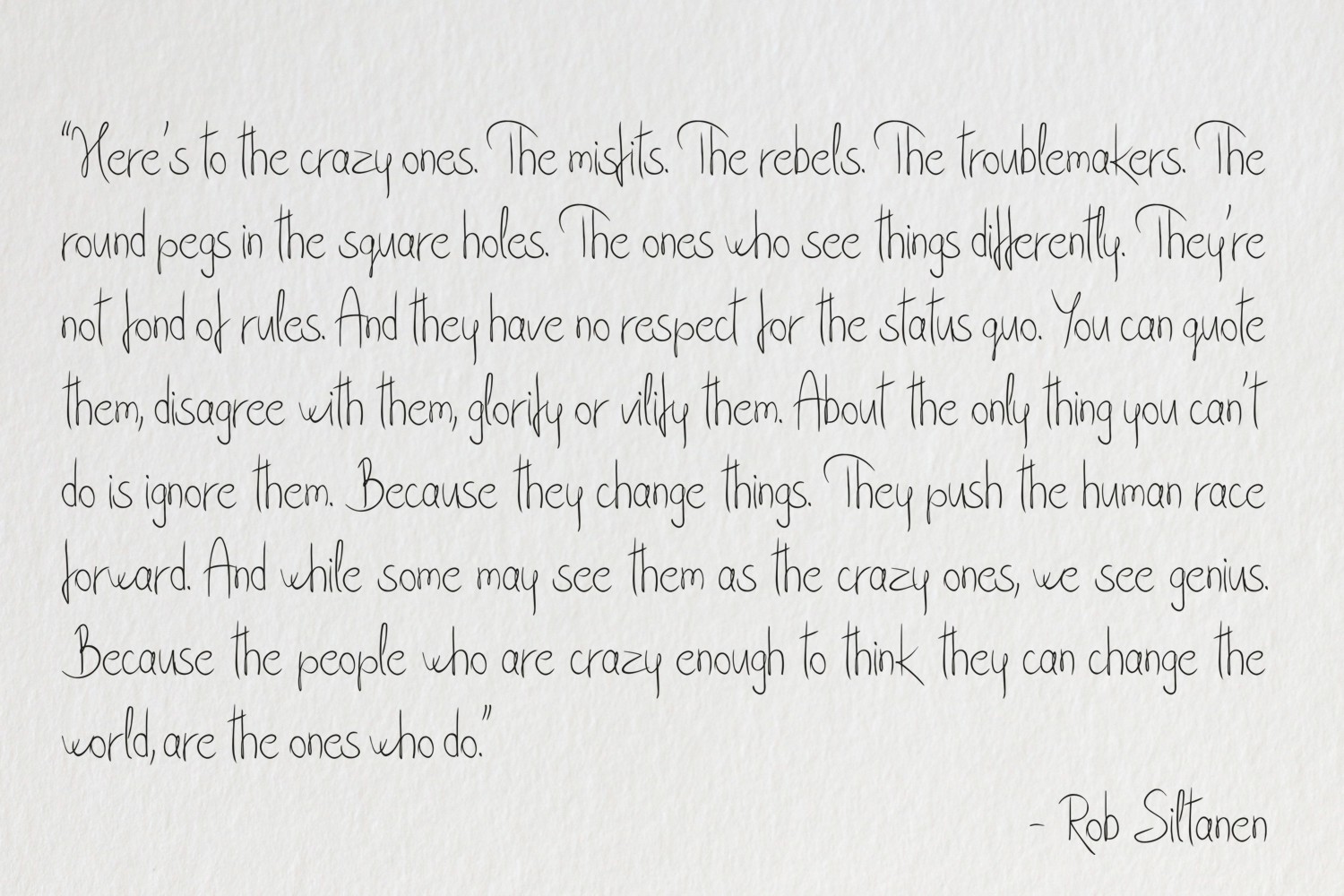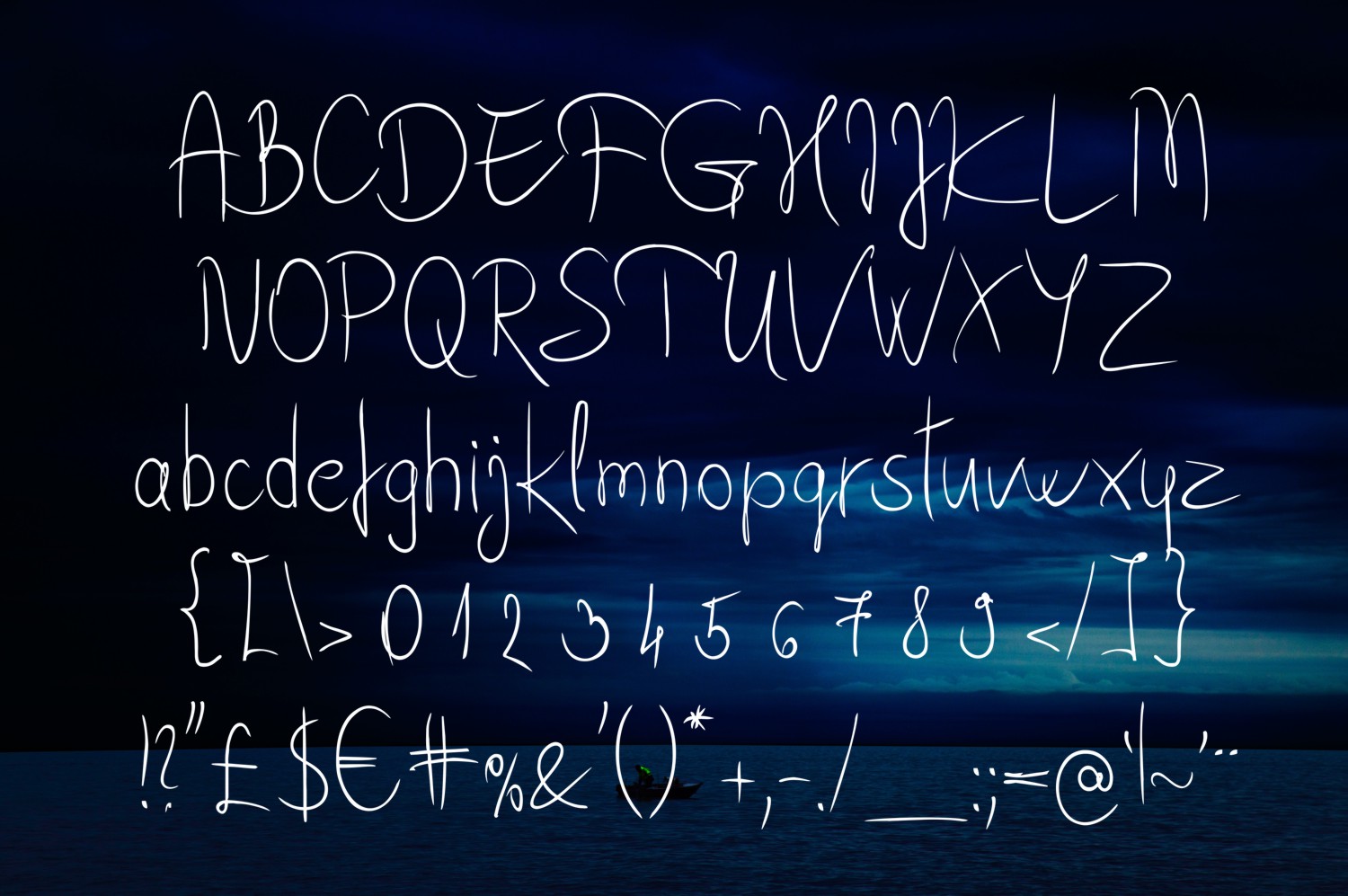
Adding a Personal Touch to Your Designs
Have you ever been in a brainstorming session with your team, surrounded by scribbled notes and hand-drawn sketches, trying to come up with the perfect concept? I’m sure you have! Those moments of creative chaos can be the most inspiring, and it’s exactly what inspired the creation of Bynda Font. This beautiful, light hand-written typeface is designed to capture the essence of casual, handwritten notes, making it perfect for projects that require a delicate and detailed touch.
Whether you’re a graphic designer, writer, or simply someone who loves to add a personal touch to your work, Bynda Font is a valuable asset to have in your toolkit. Its unique, handwritten feel can elevate your designs and make them stand out from the crowd. With Bynda Font, you can add a touch of elegance and sophistication to your projects, making it a must-have for any designer looking to take their work to the next level.
Bynda Font Key Features
- Unique Characteristics: Bynda Font features a unique blend of modern and vintage elements, with intricate details and ornaments that set it apart from other fonts.
Bynda Font Review
Overall, I was excited to dive into the Bynda Font, but my experience was a mixed bag. Let’s start with the positives:
- ✨ The font’s unique, cursive style is a great addition to any designer’s toolkit, especially for those looking to add a touch of elegance to their projects.
- ✨ The Bynda Font is highly customizable, allowing you to adjust the size, color, and even the spacing between letters to achieve the perfect look.
- ✨ The font supports a wide range of languages, making it a great choice for designers working on international projects.
However, there are some limitations that I’d like to highlight:
- ⚠️ The font may not be suitable for body text, as it can be quite difficult to read at smaller sizes. It’s best used for headings, titles, or other display text.
- ⚠️ Some users may find the font’s flair a bit too ornate, which can be distracting in certain contexts.
In conclusion, the Bynda Font is a solid choice for designers looking to add a touch of sophistication to their projects. While it has some limitations, its unique style and high customizability make it a valuable addition to any design library. With a bit of caution and planning, the Bynda Font can help take your designs to the next level.
Bynda Font Practical Application Guide
Tips for Getting the Most Out of Bynda Font
For best results, use Bynda Font in combination with bold or italic styles to add emphasis to your text.
Bynda Font is ideal for use in creative projects such as logo design, infographics, and typography-based art. It can also be used in marketing materials such as brochures, flyers, and business cards.
Alternatives to Bynda Font for Designers
Playfair Display is a luxurious serif font, ideal for creating a high-end look and feel. It’s perfect for use in titles, headings, and other design elements where elegance is desired. Playfair Display is a great alternative to Bynda Font when you want to convey sophistication and refinement.
Comparison to Bynda Font: While Bynda Font has a unique, handwritten feel, Playfair Display offers a more traditional, elegant look. Playfair Display is also more versatile and can be used in a wider range of design contexts.
Great Vibes is a modern script font that’s perfect for creating a relaxed, friendly atmosphere. It’s ideal for use in titles, headings, and other design elements where a casual, approachable feel is desired. Great Vibes is a great alternative to Bynda Font when you want to convey a sense of approachability and warmth.